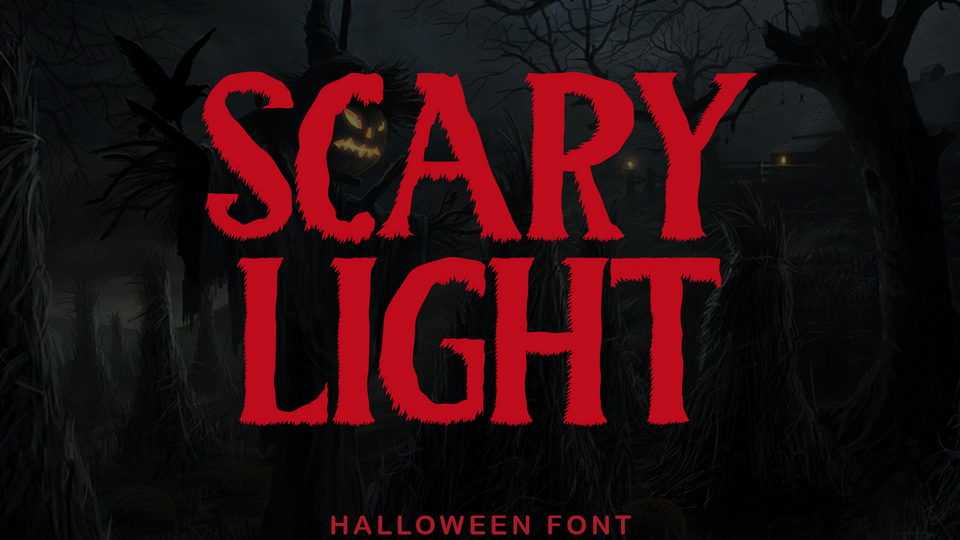
Download Scary Light font, a handmade typeface that celebrates all things creepy. It’s the ideal display font for any spooky Halloween-themed creative project.